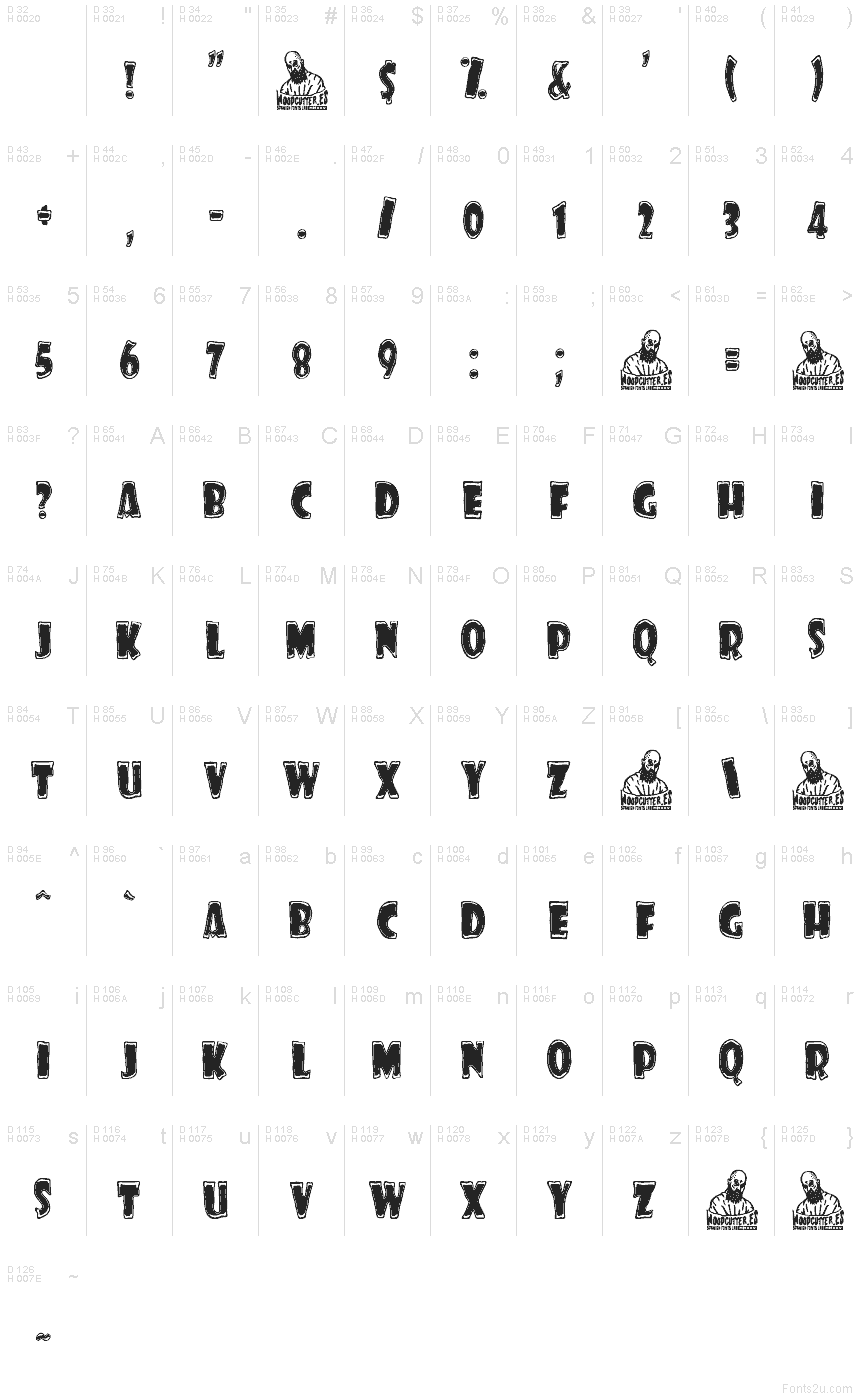
The Cartoon Hotel 04
The Cartoon Hotel 04 font by Woodcutter is a free cartoon display typeface that feels like a haunted funhouse sign come to life. Chunky black letters with wobbly, uneven edges and splattered white cutouts give it a gooey, slightly creepy energy-somewhere between vintage comics and a kid-friendly horror movie. It’s bold, noisy, and instantly grabs attention, as if each word is bubbling up from a spooky ink pot.
Using The Cartoon Hotel 04 font, you can push posters, Halloween invites, YouTube thumbnails, kids’ horror books, escape-room graphics, and themed party décor into full-on cartoon nightmare mode-without getting too scary. This free font loves to be huge, so crank it up for headlines and pair it with a clean, simple sans serif for body copy to keep things readable and fun.